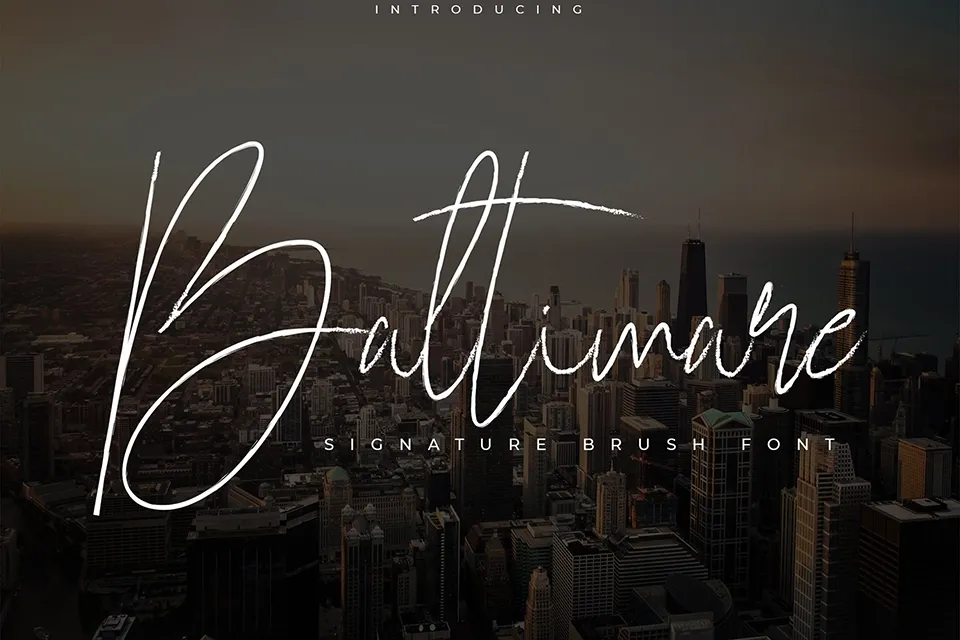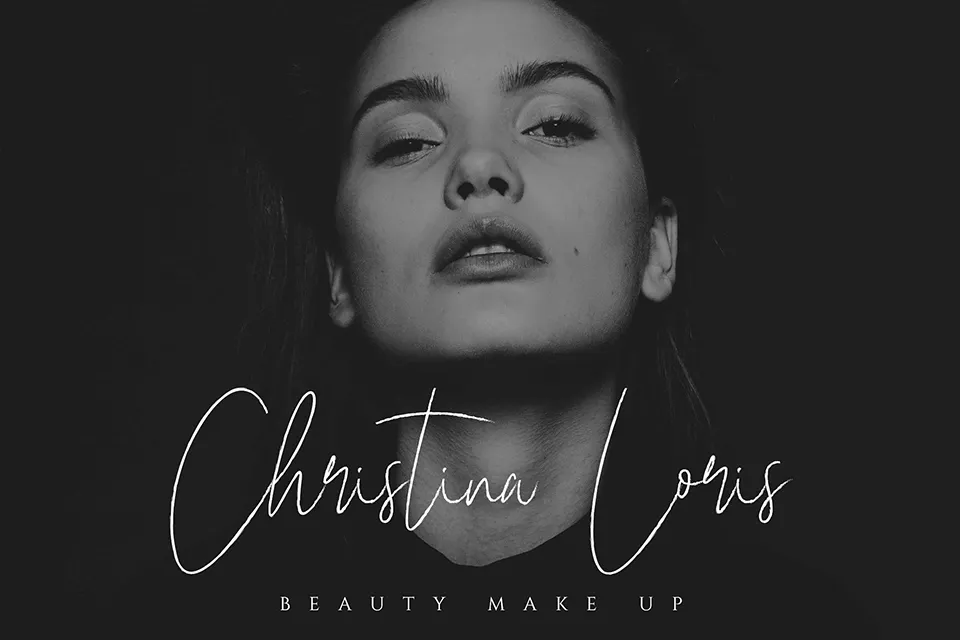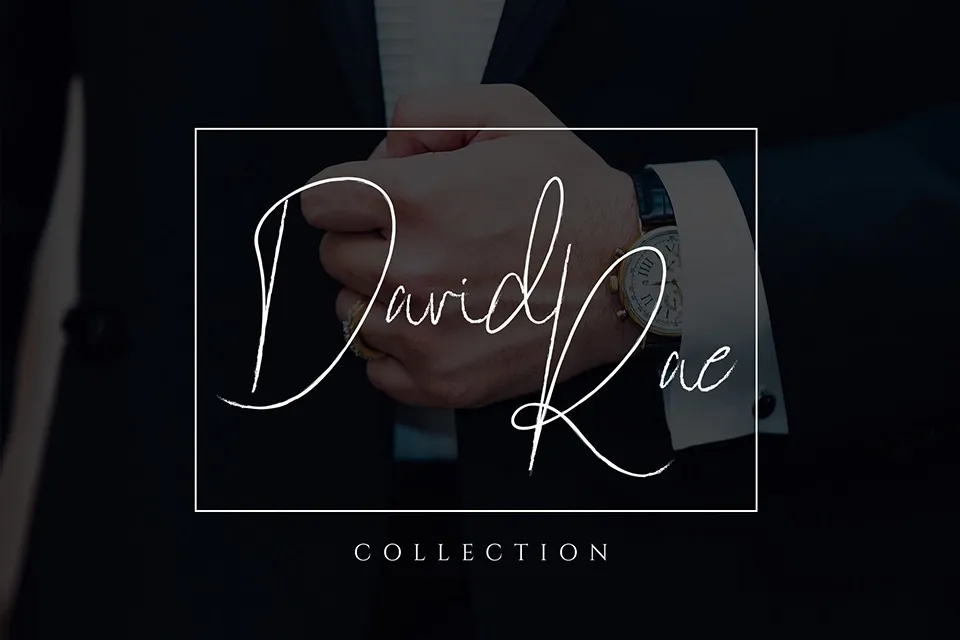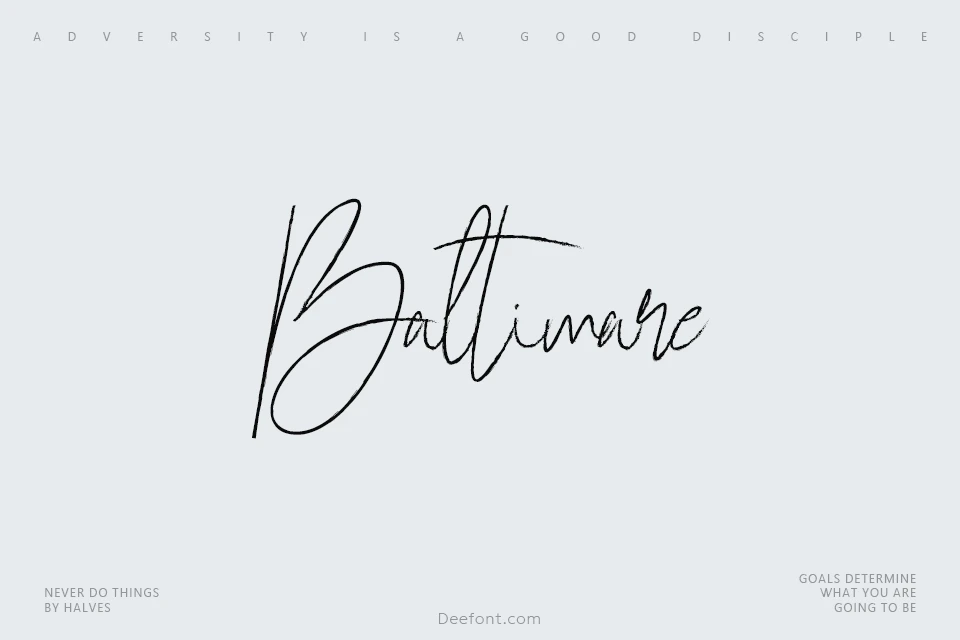
Baltimare Font
Baltimare Font is a signature script font with brushed texture and dynamic thin-to-thick contrast, merging handcrafted charm with modern elegance. Its organic stroke variations adapt seamlessly to luxury branding, editorial headers, packaging, and digital platforms. Supporting extended Latin characters with multilingual capabilities, the font ensures clarity across print and screen applications. The package includes OpenType stylistic alternates for creative customization, featuring effortless compatibility with Adobe Creative Cloud, Canva, and Microsoft Office. Designed for visual impact, its subtle textured finishes add artisanal character to movie titles, product logos, and social media graphics while maintaining professional typographic precision.